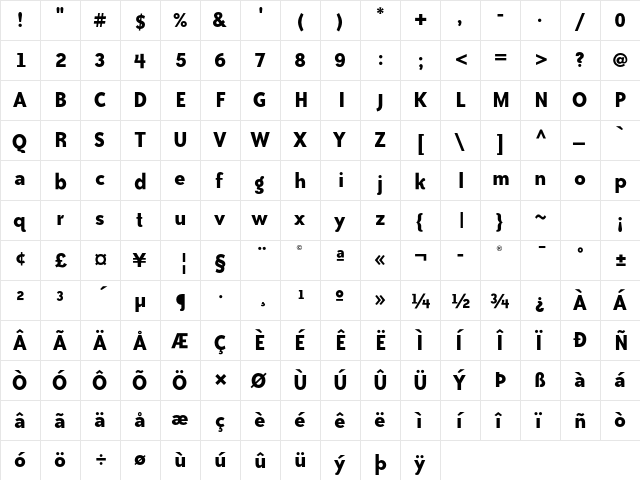
Bailey Sans ITC Std Bold
| Designer | Kevin Bailey |
Design Context for Bailey Sans ITC Std Typeface
Bailey Sans ITC Std is a composed and adaptable typeface that performs quietly and consistently across a wide range of design contexts. Its bold stroke weight gives it real presence on the page.